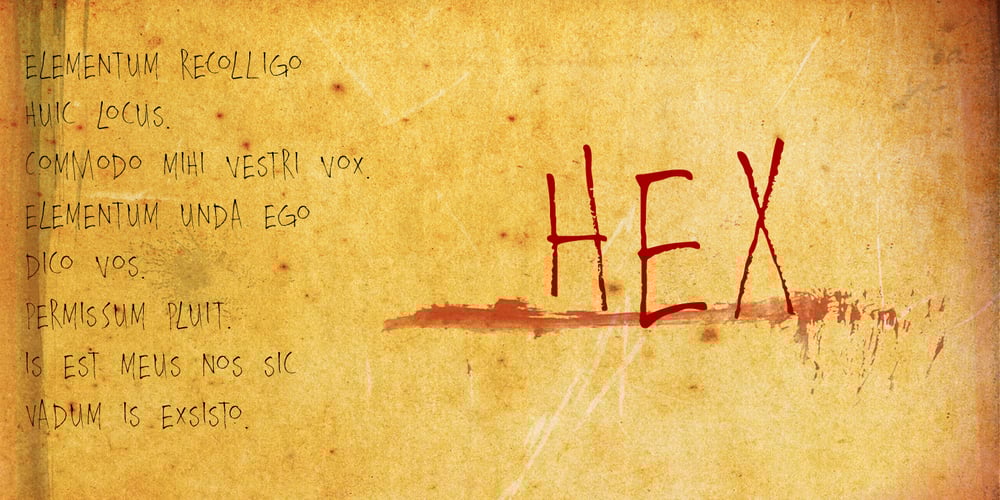
Hex font
Hex Font Family was designed by David Kerkhoff and published by Hanoded. Hex contains 1 styles and family package options. Hex is an uneven, spiky font with an evil twist. The glyphs look like they have been scratched onto paper (which is indeed the case), so it will be perfect for your scary halloween postcards or posters. Hex font comes with extensive language support.